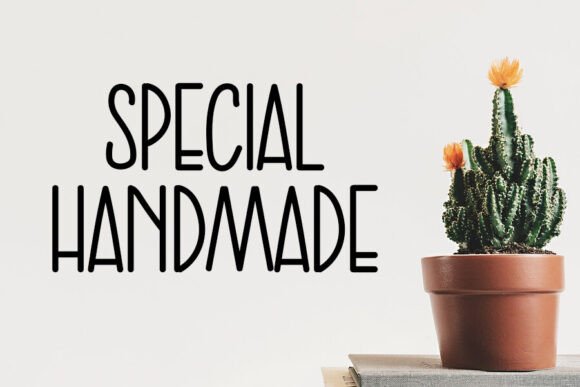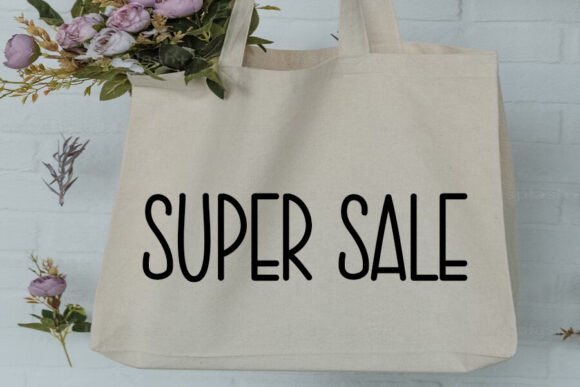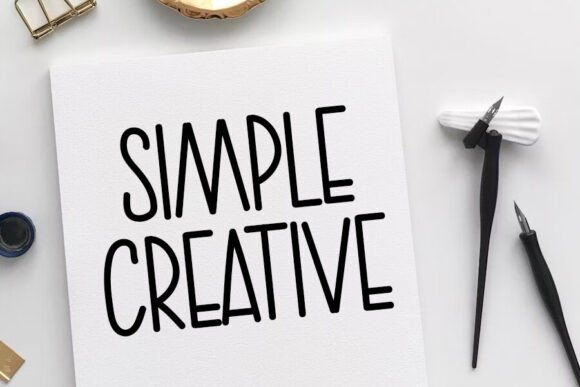
Modern Vintage Font
Introducing the “Modern Vintage” font, an elegant blend of contemporary creativity and classic appeal. Seamlessly breathe new life into your diverse design needs, from the dynamic arena of YouTube banners to the exquisite beauty of wedding invitations. Elevate the style of your cover logo mockups, ID cards, flyers, and crafts, enabling them to make a memorable statement. Harnessing the power of the “Modern Vintage” font opens the door to elevated business growth and success. Embrace a world of design where simplicity meets uniqueness, and where the charm of yesterday meets the chic of today.